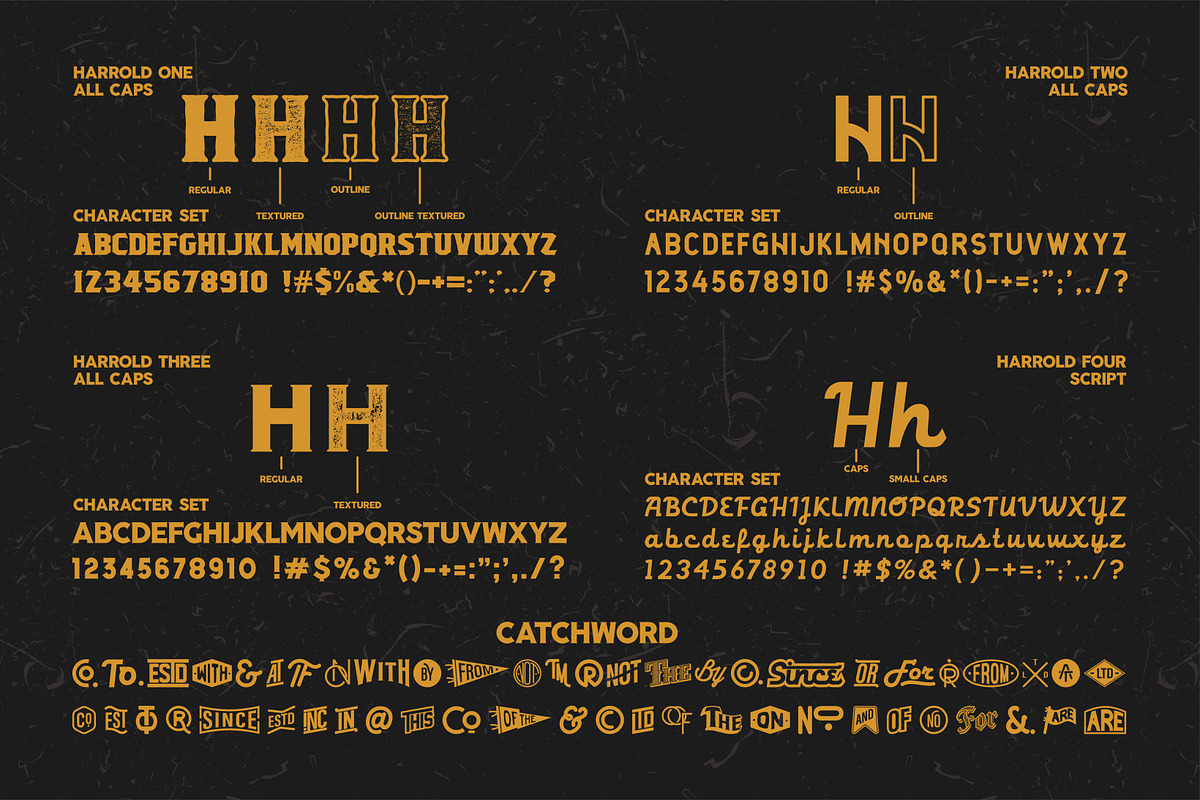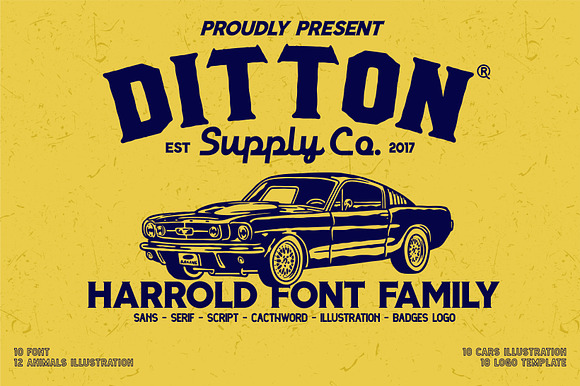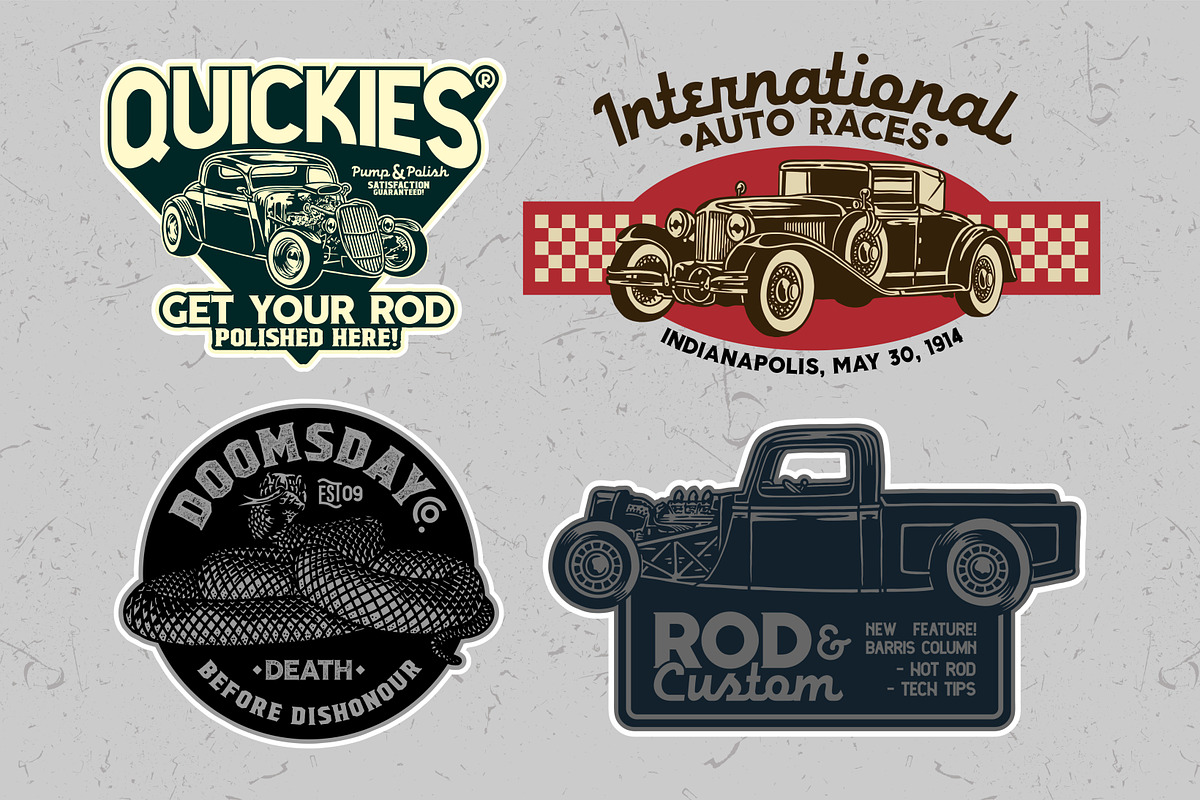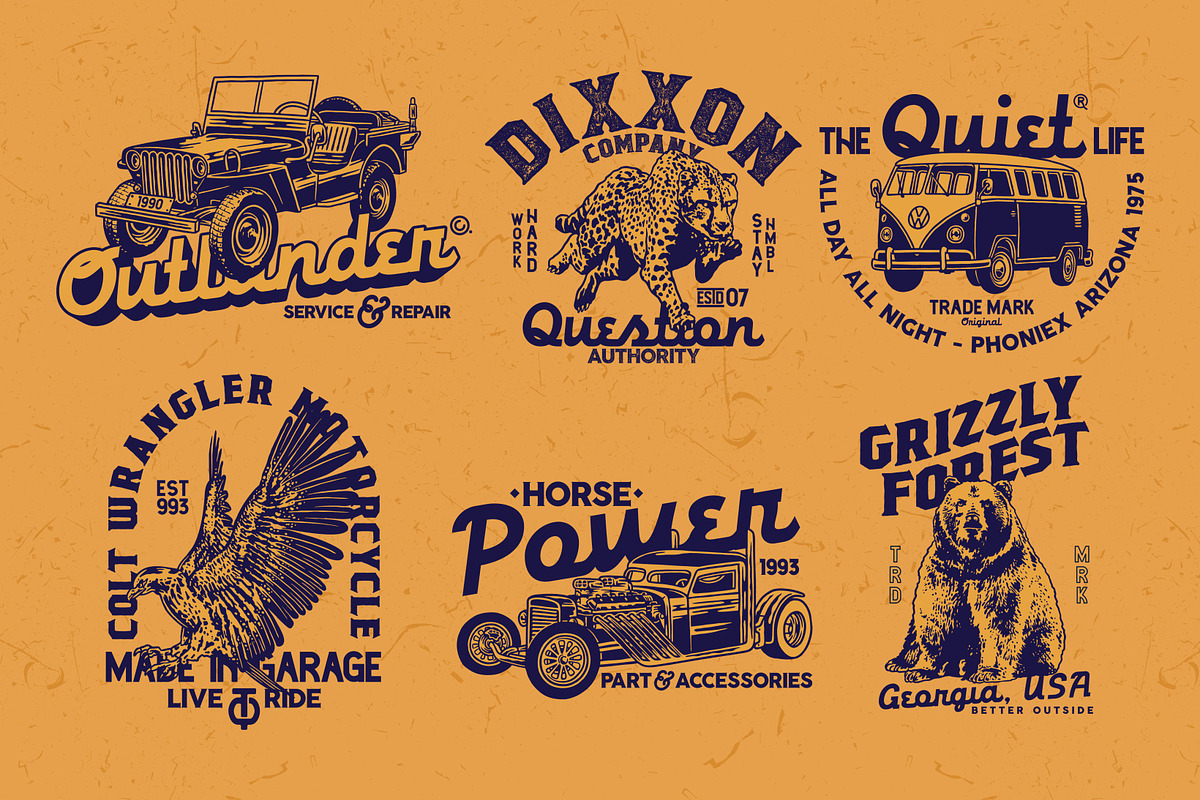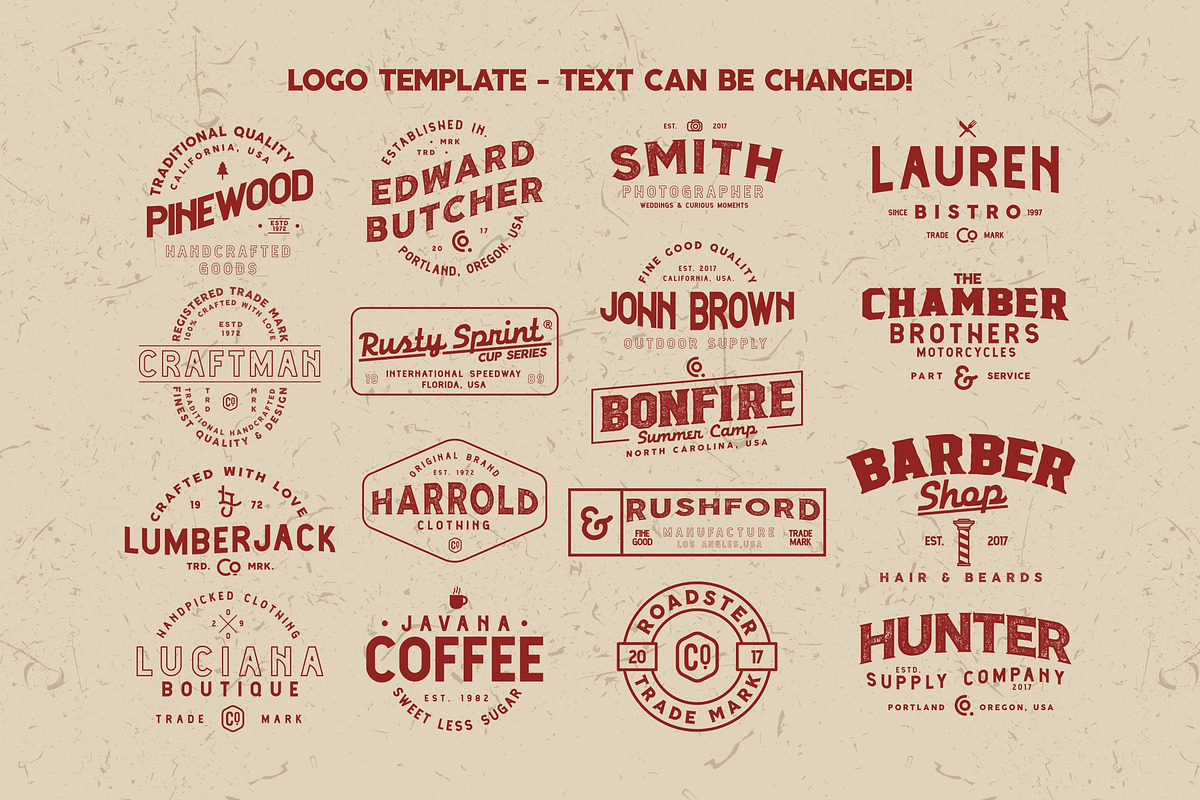
Harrold Font Family & Vector Collections
Harrold Font Family includes 10 fonts that have different styles from each other but at the same time perfectly paired when used together create your best design with this font for any purposes suck as t-shirts, logos, poster design, magazine, mark, and others. This is essentially 10 fonts being released together instead of separately. 10 Fonts, 18 Premium Logo Templates, 22 Vector Illustrations (Animal & Vintage Cars)
all the designs and contained in the poster use Harrold font family!